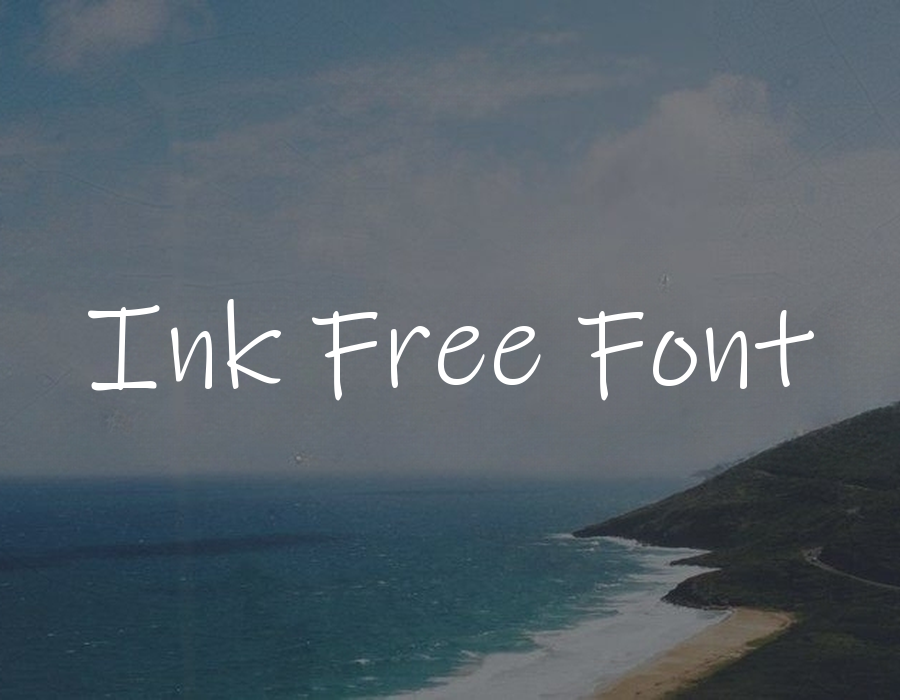
About Ink Free Font
Ink Free is a casual script typeface bundled with Windows 10 and later versions, designed to emulate the look of natural, quick handwriting with a ballpoint pen or marker. It features variable stroke weights, irregular letterforms, and a slightly uneven baseline to enhance its authentic, informal feel. Created with touch and pen input in mind, it integrates well with Windows Ink Workspace for stylus-based notes and sketches. While not suited for formal documents, its approachable and personal character makes it a handy built-in option for creating friendly signage, informal labels, digital sticky notes, and creative school or hobby projects.